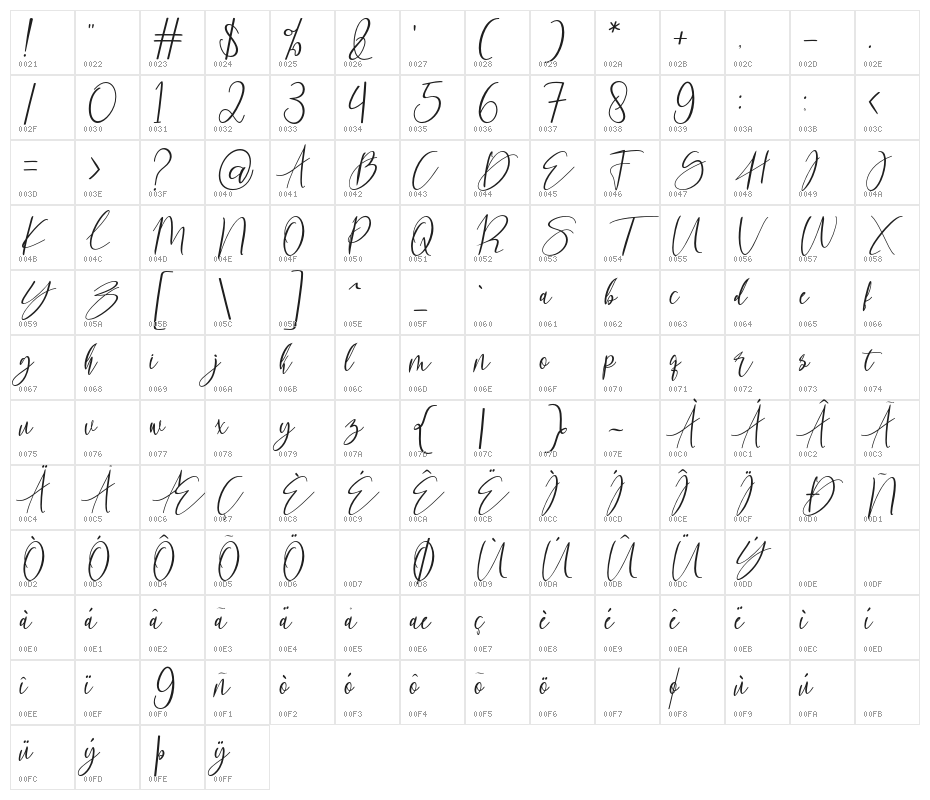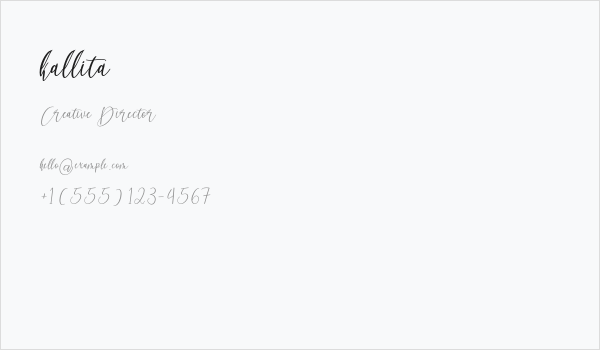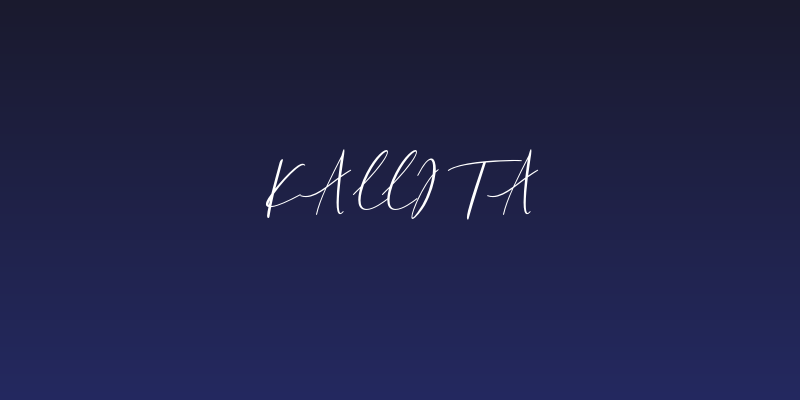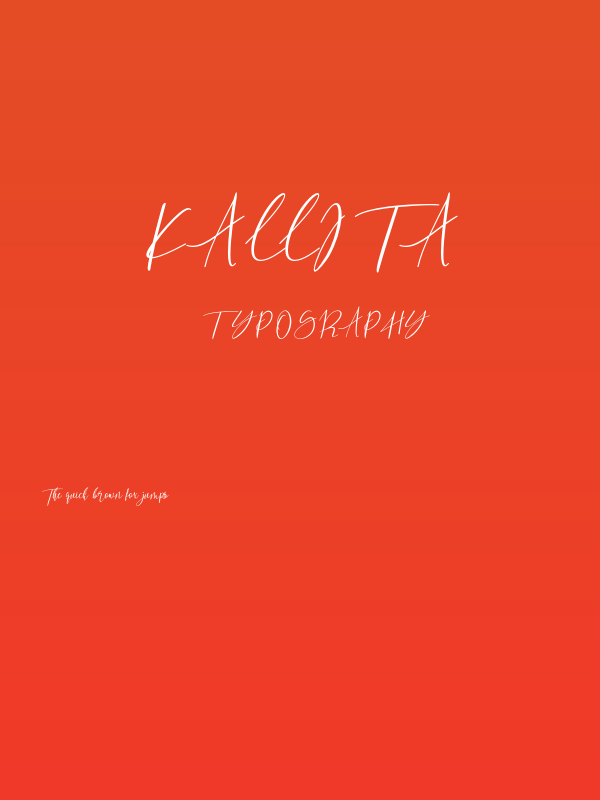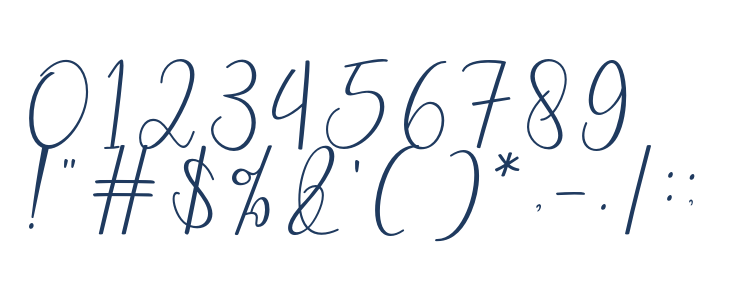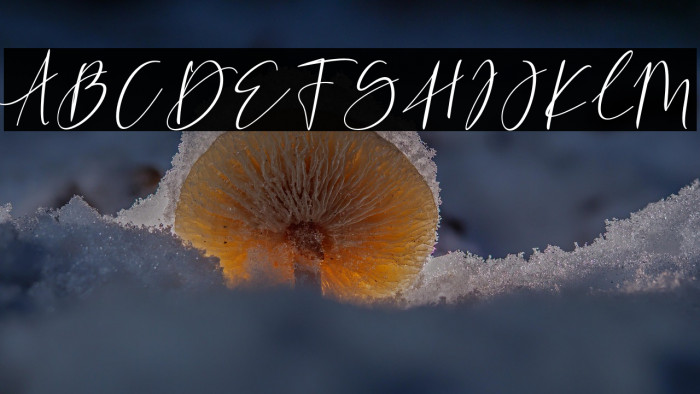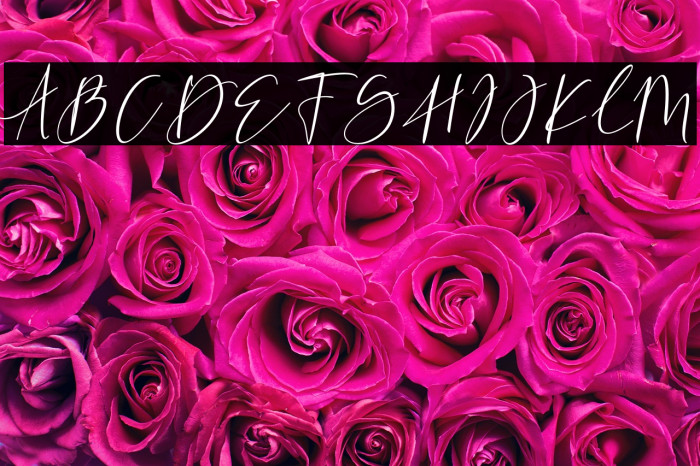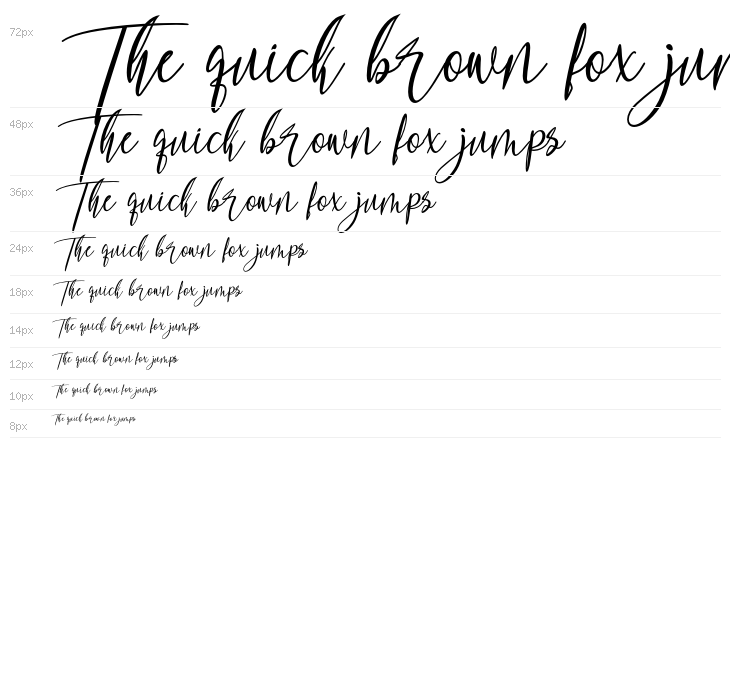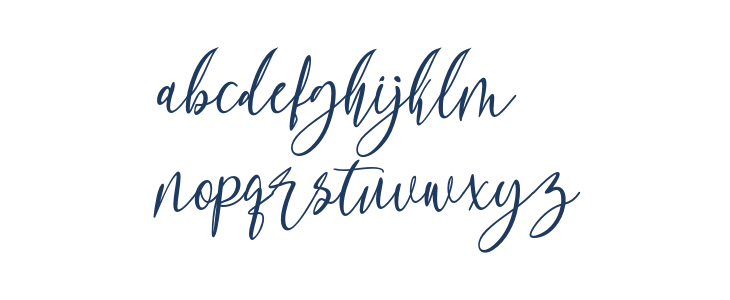
kallita Font
kallita Description
This font features a flowing, cursive style with elegant, sweeping strokes that convey a sense of sophistication and grace. The uppercase letters are tall and slender, with a slight slant that adds a dynamic feel. The lowercase letters are more intricate, with loops and flourishes that enhance the overall decorative appearance. The numbers and special characters maintain the same fluidity, ensuring consistency across all elements. This font is ideal for projects that require a touch of elegance and personal flair.